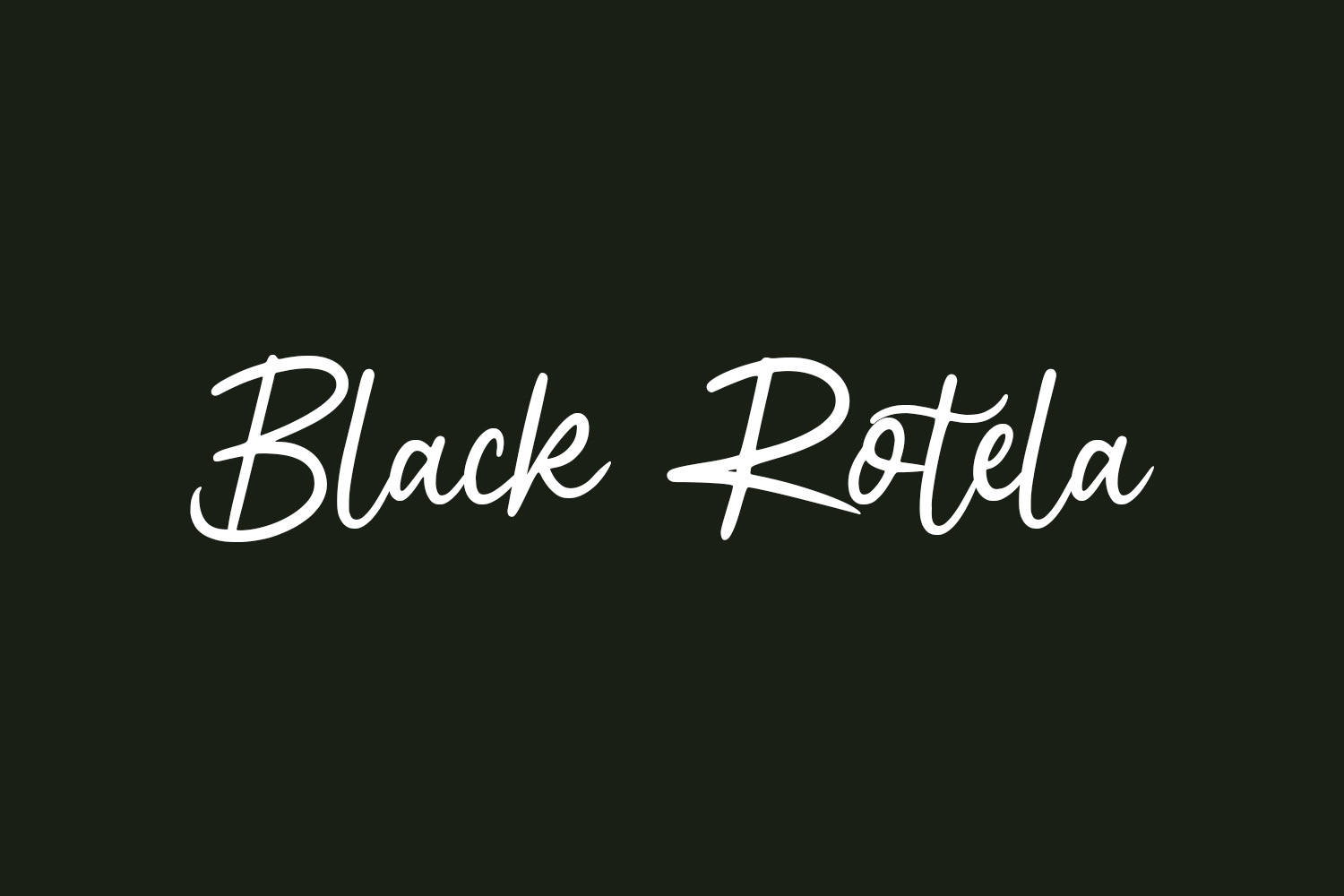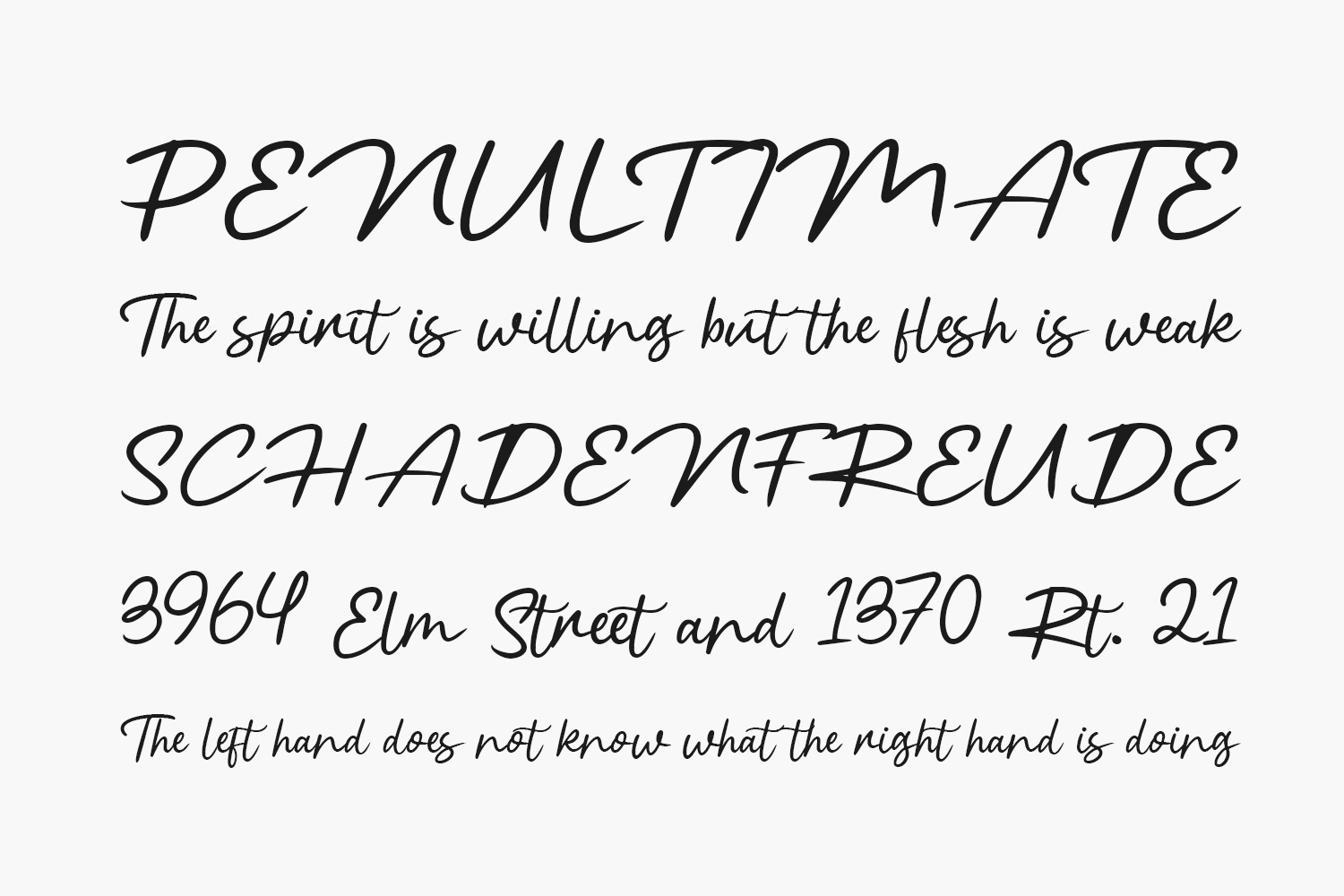
Black Rotela Free Font is a lovely script font featuring charming, playful characters that seem to dance along the baseline. Add this font to your most creative ideas, and notice how it makes them stand out. Black Rotela Free Font was designed by Typetemp Studio and is free for personal use only. Please purchase the full version for commercial use.